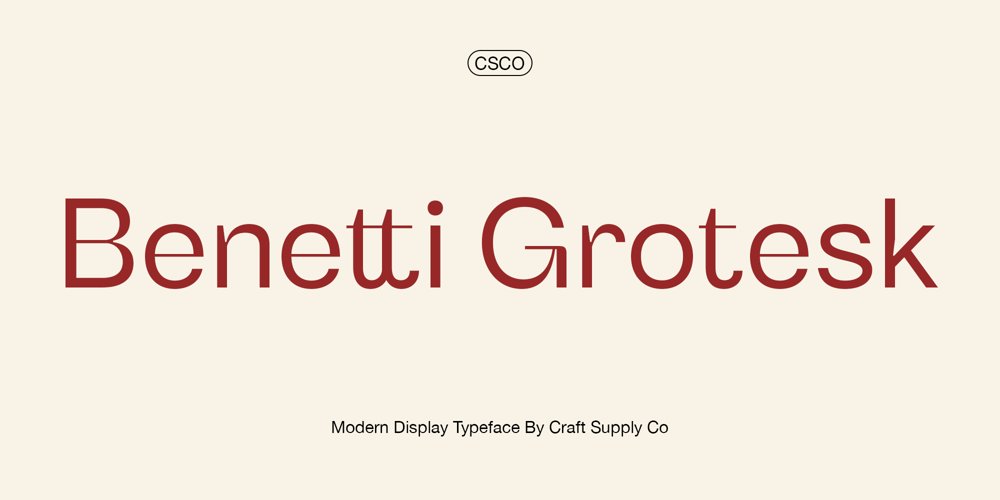
Benetti Grotesk Font Family was designed by Wahyu Hadi Yuana and published by Craft Supply Co. Benetti Grotesk contains 1 styles and family package options. Benetti Grotesk is a modern sans serif inspired by grotesque typeface construction with few contemporary sense in the details that make it look more attractive for a display typeface. It can be used to create almost all types of design projects like print materials. Just use your imagination and your project will become more alive and look great than ever with this typeface.